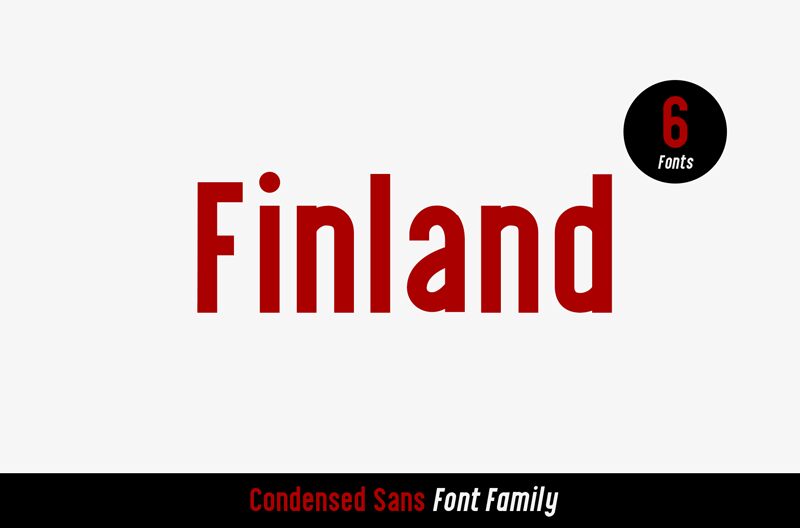
Finland Thin
Finland Thin font by Craft Supply Co is a modern, clean, and minimalistic sans serif typeface. This elegant geometric font features a light weight with a condensed width which contributes to its unique appearance. Characteristic sharp angles, straight edges, and flat curves characterize this font’s carefully designed typography.